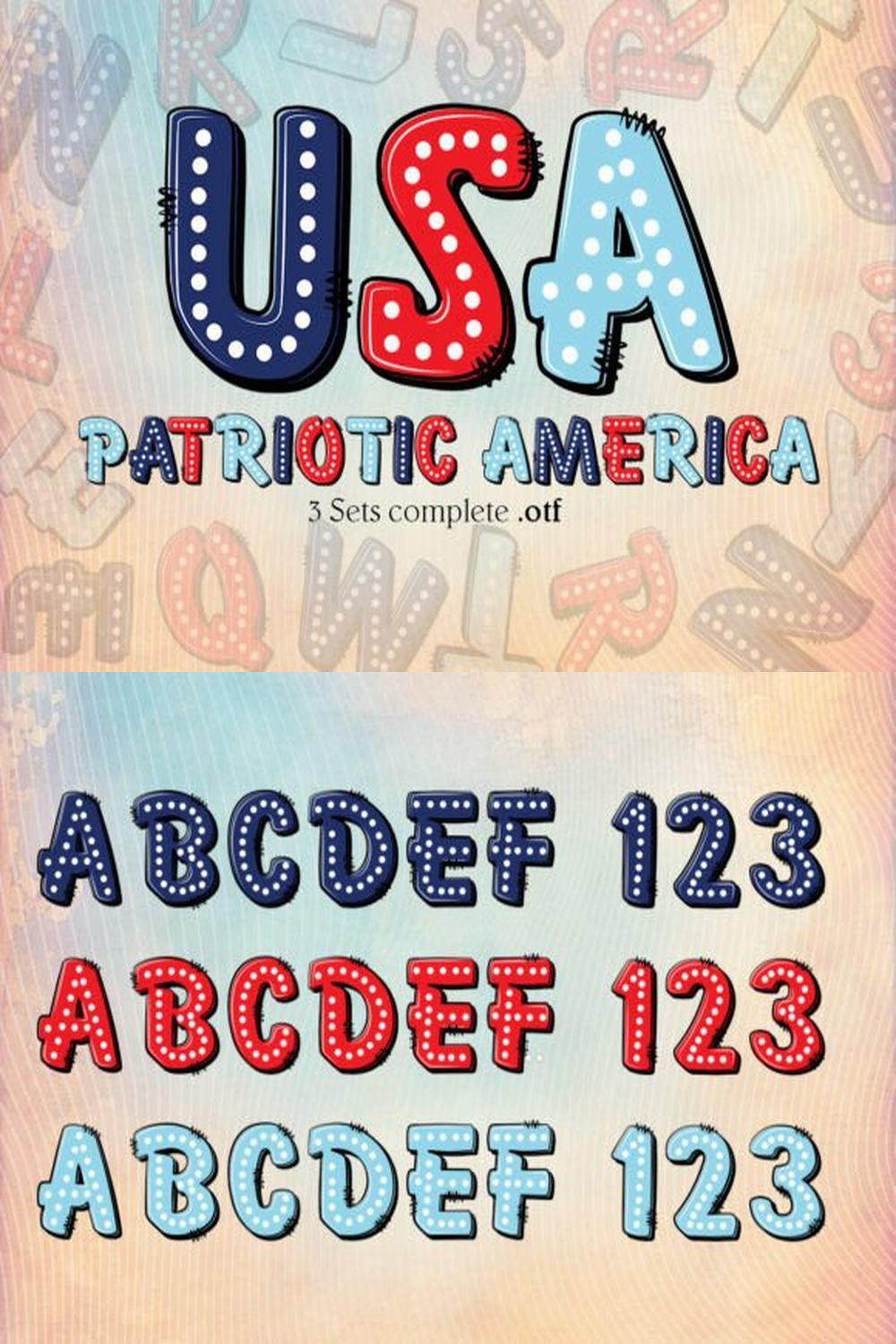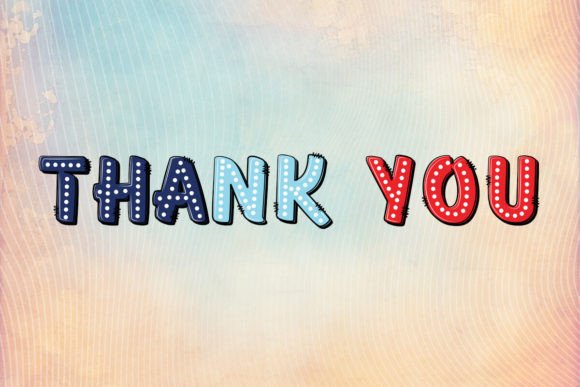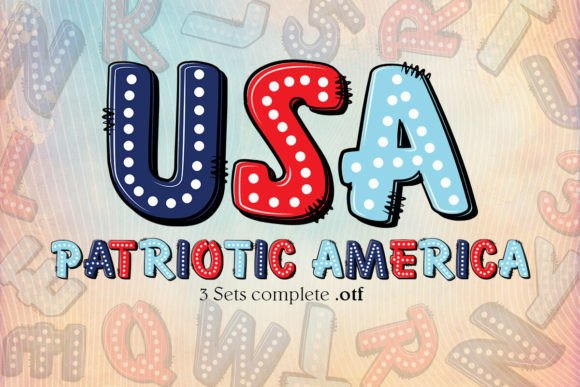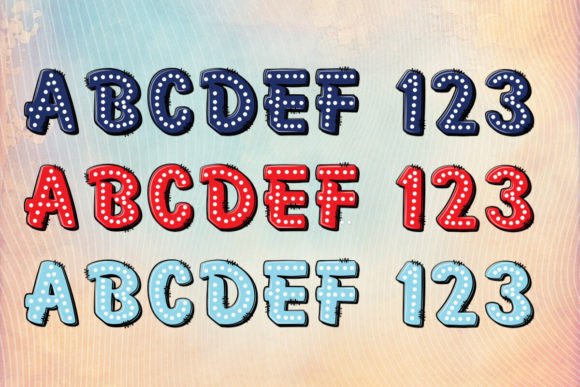
Patriotic America Font
About the Patriotic America Font
Get ready to be inspired by Patriotic America Font, a fresh and dynamic typeface for modern creators. Introducing “Patriotic America Popart” Color Font: Dive into a world of vibrant colors and playful design with this delightful font! Inspired by the whimsical patterns of bubbles and the enchanting hues of rainbows. This decorative font is perfect for projects that celebrate American culture, history, or events such as Independence Day, Veterans Day, or Memorial Day. “Patriotic America Popart” brings a sense of joy and fun to your projects.
Whether you’re creating invitations, posters, or social media graphics, this font adds a touch of whimsy and charm. With its bold and dynamic appearance, “Patriotic America Popart” is sure to make your designs pop and stand out. Let your imagination soar and unleash your creativity with “Patriotic America Popart” Color Font!